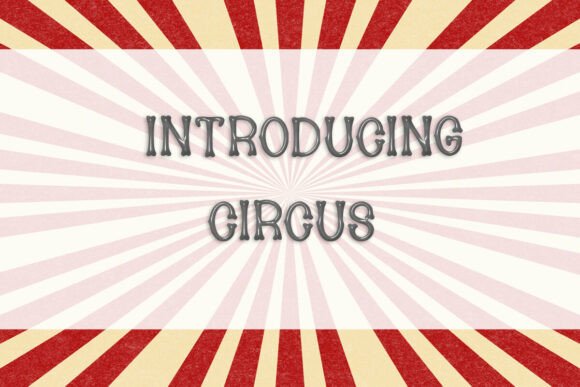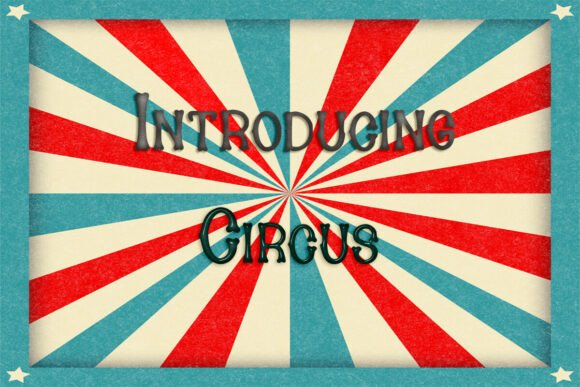
Unleash the Magic of the Circus Font: Elevate Your Designs with Whimsy and Sophistication
Are you ready to add a dash of excitement and charm to your designs? Look no further than the captivating Circus font! This versatile typography is a game-changer for designers, crafters, and anyone looking to breathe life into their visual projects. From transforming ordinary shirts into striking fashion statements to enhancing the visual appeal of stickers, magazines, and branding, the Circus font is the perfect addition to your creative arsenal.
A Font that’s Anything but Ordinary
The Circus font boasts a fluid design that exudes sophistication and whimsy. Its unique charm makes it an ideal choice for a wide range of applications, from fashion and branding to publishing and digital media. Whether you’re a seasoned designer or a crafty DIY enthusiast, this font is sure to inspire your creativity and take your projects to the next level.
Unleash Your Creativity with the Circus Font
So, how can you use the Circus font to elevate your designs? Here are just a few ideas to get you started:
- Fashion Forward: Transform ordinary shirts into striking fashion statements with the Circus font. Perfect for designers, crafters, and DIY enthusiasts, this font adds a touch of personality to any garment.
- Sticker Appeal: Enhance the visual appeal of your stickers with the Circus font. Whether you’re creating custom labels, decals, or promotional materials, this font is sure to make your designs stand out.
- Magazine Magic: Add a touch of sophistication to your magazines with the Circus font. Its fluid design makes it perfect for headlines, subheadings, and body copy, creating a captivating reading experience for your audience.
- Branding and Beyond: Breathe life into your branding with the Circus font. From logos and business cards to website headers and social media graphics, this font adds a distinctive, charismatic look to your visual identity.
- SVG Files and Greeting Cards: Add a personal, heartfelt touch to your SVG files and greeting cards with the Circus font. Perfect for special occasions, holidays, or everyday expressions of appreciation.
- Cricut Projects: Turn your Cricut projects into stunning masterpieces with the Circus font. From custom signs and banners to intricate designs and patterns, this font adds a touch of magic to your crafty creations.
- Eye-Catching Posters: Create posters that command attention with the Circus font. Perfect for advertising, promotions, or events, this font is sure to grab the attention of your audience.
- Social Media Presence: Elevate your social media presence with the Circus font. Add a distinctive, charismatic look to your graphics, posts, and stories, and watch your engagement soar.
The Benefits of the Circus Font
So, what makes the Circus font so special? Here are just a few benefits of using this versatile typography:
- Versatility: The Circus font is perfect for a wide range of applications, from fashion and branding to publishing and digital media.
- Unique Charm: This font boasts a fluid design that exudes sophistication and whimsy, making it an ideal choice for designers and crafters looking to add a touch of personality to their projects.
- Customization: With the Circus font, you can customize your designs to fit your unique style and brand identity.
With the Circus font, the possibilities are endless! Whether you’re a seasoned designer or a crafty DIY enthusiast, this versatile typography is sure to inspire your creativity and take your projects to the next level. So why wait? Download the Circus font today and get ready to unleash your creativity!
In conclusion, the Circus font is a game-changer for designers, crafters, and anyone looking to breathe life into their visual projects. Its unique charm, versatility, and ease of use make it an ideal choice for a wide range of applications. So go ahead, immerse yourself in the captivating charm of the Circus font, and watch your designs come to life!